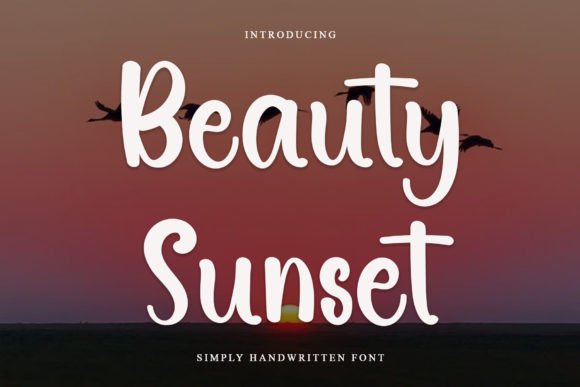
Dive into the enchanting world of Beauty Sunset Font, a script typeface that evokes the captivating charm of a sunset. Inspired by nature's artistry, this font captures the ethereal beauty of twilight, infusing your designs with a sense of serenity and grace.
Picture this: a wedding album cover adorned with the Beauty Sunset Font, its delicate curves and flowing lines guiding the viewer's eyes across the page like a gentle breeze. The font's romantic aura adds a touch of elegance and allure, transforming your album into a timeless keepsake that radiates warmth and nostalgia.
Beyond wedding albums, Beauty Sunset Font's versatility shines in feminine branding and editorial projects. Its distinct character lends a sophisticated touch to logos, branding materials, and marketing campaigns, evoking a sense of charm and femininity that resonates with audiences. This font is the epitome of sophistication, exuding confidence and poise.
Allow Beauty Sunset Font to transport you to tranquil meadows bathed in golden sunlight or serene gardens adorned with blooming flowers. Its harmonious curves create a visually stunning typography experience, leaving an imprint of visual delight on every design it graces.
Written invitations, social media posts, and flyers come alive with the Beauty Sunset Font. Its elegant letterforms add an air of refinement and artistry, ensuring your messages captivate and inspire. This font is more than just a collection of letters; it's a symphony of visual harmony that captivates and enchants.
With Beauty Sunset Font, you're not just choosing a typeface; you're embarking on a creative journey where beauty and grace intertwine. Download this font today and let your designs bask in the enchanting glow of a sunset's embrace.